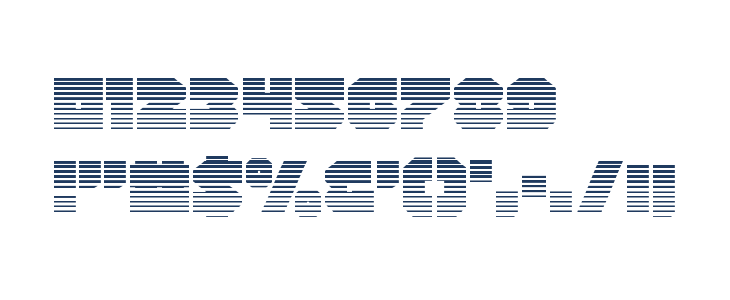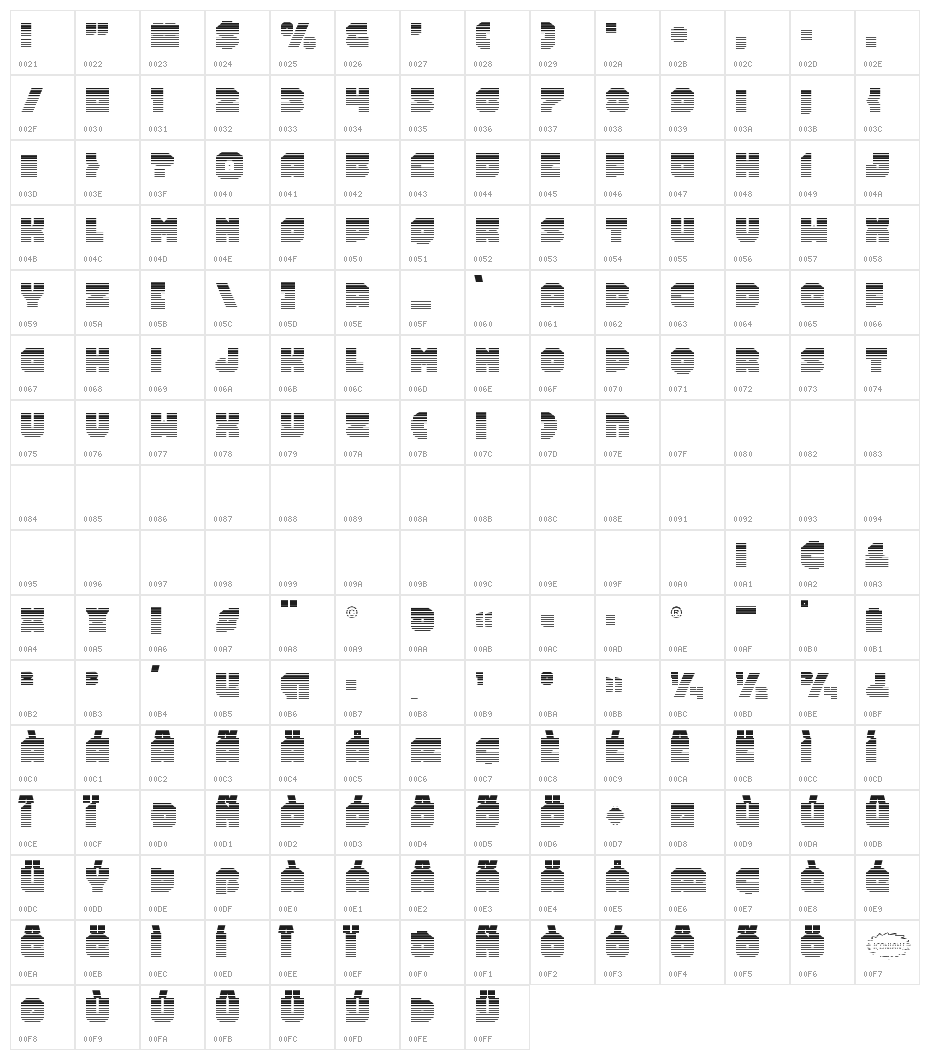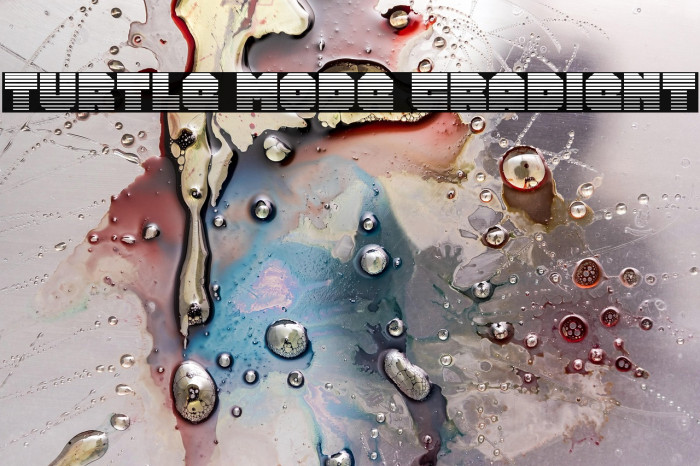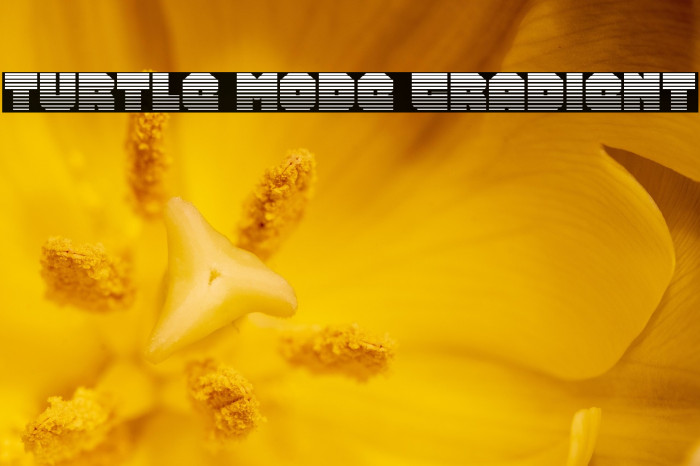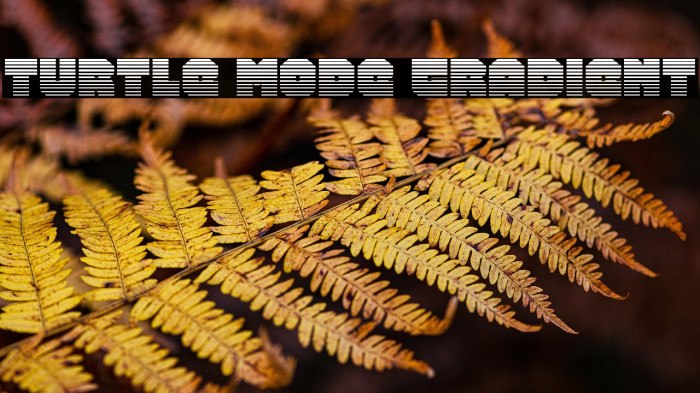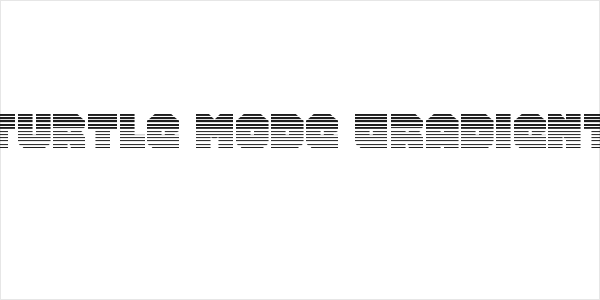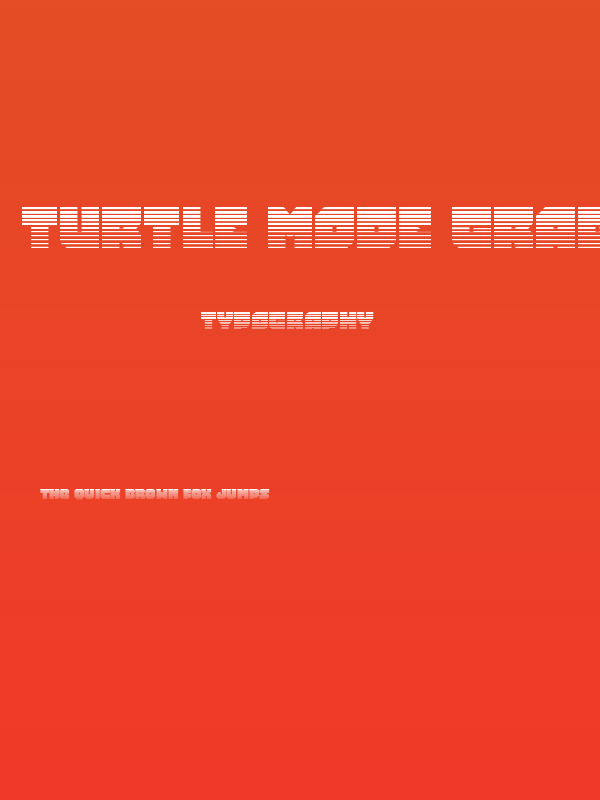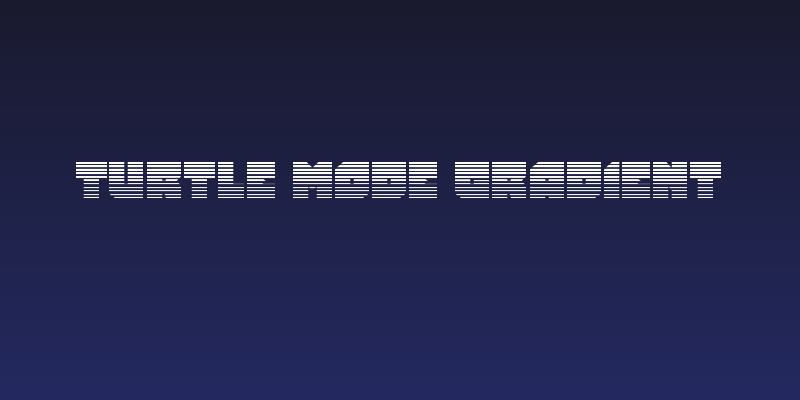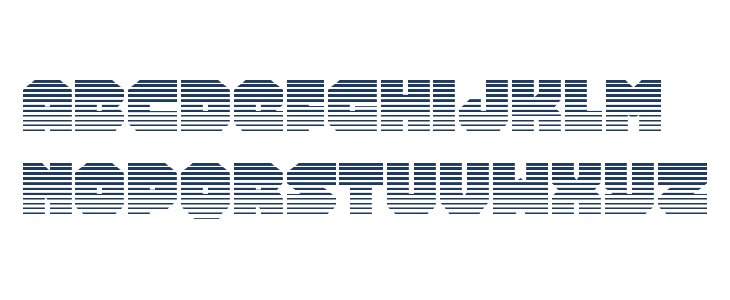
Turtle Mode Gradient Font
Turtle Mode Gradient Description
This font features a unique, modern design characterized by horizontal lines that create a gradient effect across each character. The letters are bold and wide, giving a strong visual impact. The geometric structure is consistent throughout, with each character maintaining a uniform width and height. The use of parallel lines adds a sense of movement and dynamism, making it stand out in any design. The font includes both uppercase and lowercase letters, numbers, and a selection of special characters, all maintaining the same stylistic approach. The overall appearance is futuristic and eye-catching, suitable for projects that require a bold statement.
| Proposed Projects | Ideal for futuristic designs, tech branding, posters, and digital media that require a bold and dynamic look. |